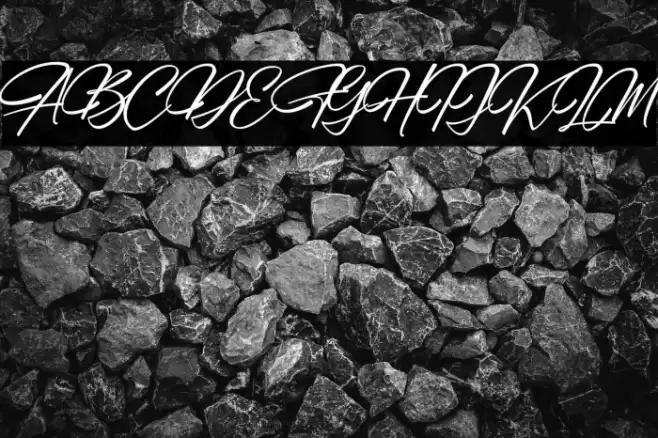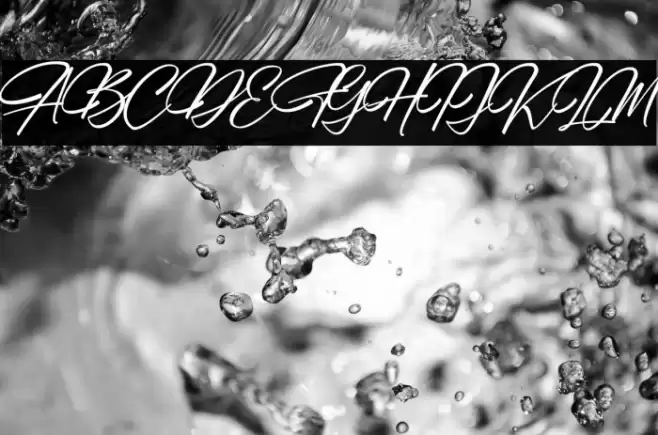
Madinah Authentic Font
Madinah Authentic Description
This font features a dynamic and flowing script style, characterized by its elegant and fluid letterforms. The uppercase letters are bold and sweeping, with a distinct slant that adds a sense of movement and grace. The lowercase letters maintain a consistent style, with smooth curves and connections that create a harmonious flow. The numerals are equally stylish, with a slightly exaggerated flair that complements the overall aesthetic. Special characters are thoughtfully designed to match the script's elegance, making it versatile for various applications. The font's overall appearance is both sophisticated and approachable, making it suitable for a wide range of creative projects.
A dynamic, flowing script font with elegant, fluid letterforms and a sophisticated style from Uncategorized fonts.
- Font: Madinah Authentic
- Proposed Projects: Ideal for wedding invitations, branding, logo design, greeting cards, and elegant packaging.
- Overall Style: Elegant, Sophisticated
- Use Case: Logos, Invitations, Branding